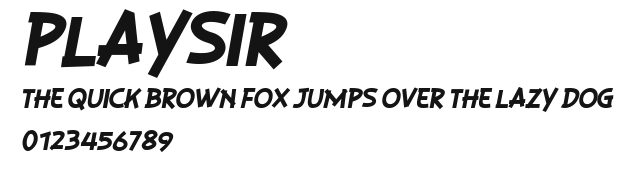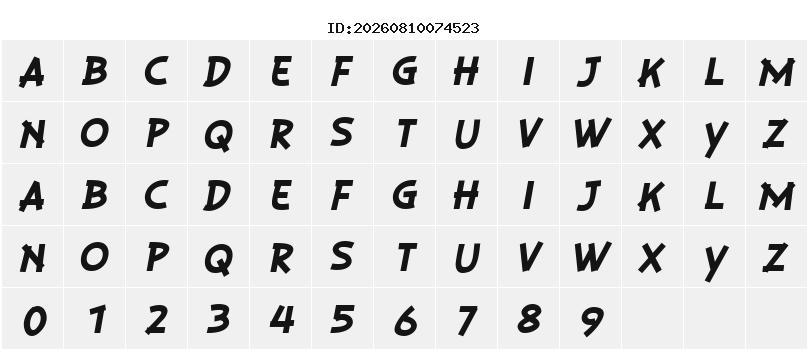
• Font Name: PLAYSIR
• Designer: Situjuh Nazara
About PLAYSIR.otf
PLAYSIR.otf is a modern, elegant sans-serif font designed for ultimate readability and visual harmony. Perfect for branding, headlines, web design, and print materials.